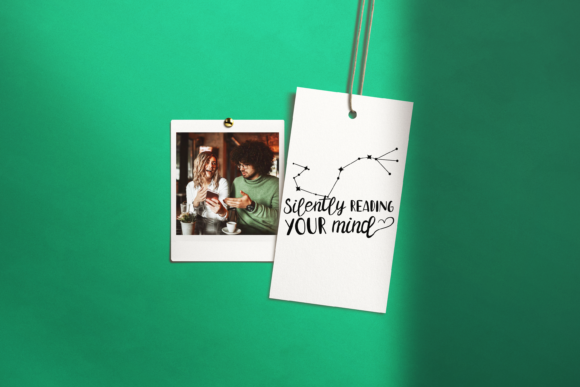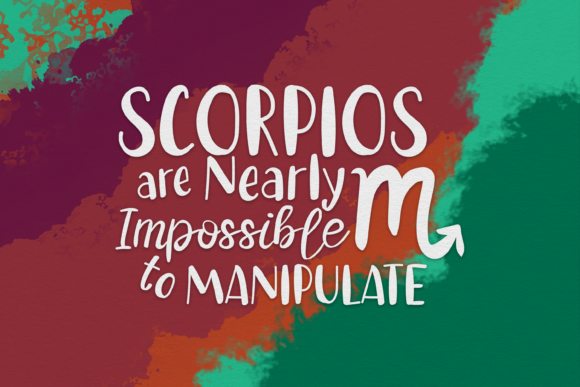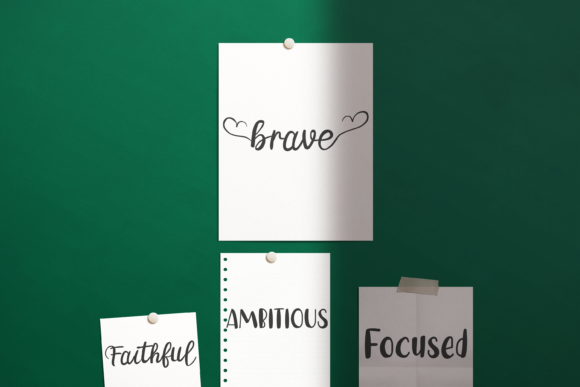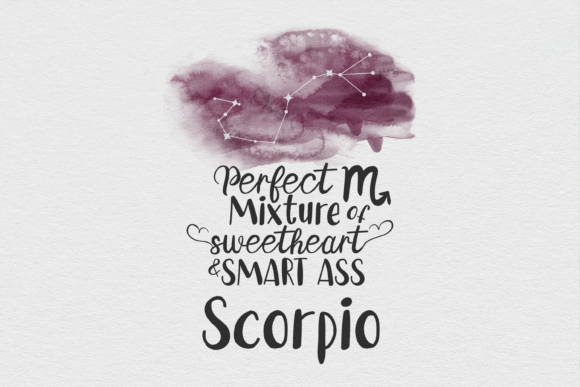
The Perfect Pair: Unlocking the Potential of Bravery Scorpio Duo Font
There’s nothing quite like the rush of creativity that comes when you’re working on a new project. The ideas are flowing, the colors are popping, and the fonts are speaking to you in a way that’s almost magical. But let’s be real, sometimes even the most talented designers need a little help finding that perfect font to tie everything together. That’s where Bravery Scorpio Duo Font comes in – a stunning display and script duo designed to complement each other perfectly.
Whether you’re a seasoned pro or just starting out, Bravery Scorpio Duo Font is the ultimate addition to your design arsenal. With its PUA encoded glyphs and swashes, you’ll have endless possibilities at your fingertips. From invitations and greeting cards to digital products and branding materials, this font is sure to bring a touch of elegance and sophistication to your work.
- Unique Characteristics: Bravery Scorpio Duo Font features a bold, modern design with a mix of geometric and organic elements, making it perfect for headlines and titles.
Bravery Scorpio Duo Font Review
I recently had the chance to work with the Bravery Scorpio Duo Font, and I must say it’s a unique and captivating addition to any design project. Here’s my honest review.
- Pairing Options: The Scorpio Duo Font comes in two weights, making it perfect for pairing with various text styles and creating visually appealing contrasts.
- Stylish Typography: This font offers a distinctive, elegant look that’s ideal for fashion, lifestyle, and luxury brands.
- High-Quality Rasterization: The font’s rasterization is top-notch, making it suitable for both digital and print materials.
- Limited Character Set: The Scorpio Duo Font only includes a basic character set, which might be a concern for designers working on projects requiring special characters or languages.
- Not Ideal for Body Text: While this font is perfect for headings and titles, its smaller text sizes may become difficult to read.
Overall, I’d say the Bravery Scorpio Duo Font is a solid choice for designers looking to add a touch of sophistication and elegance to their projects. While it has some limitations, its unique style and pairing options make it a valuable addition to any design library.
Tips for Getting the Most Out of Bravery Scorpio Duo Font
To get the most out of Bravery Scorpio Duo Font, use it to create bold, eye-catching headings and titles. This font is perfect for creating a dramatic and intense atmosphere in your designs.
Bravery Scorpio Duo Font is commonly used for:
- Creating bold, eye-catching headings and titles.
- Designing dramatic and intense promotional materials, such as posters and flyers.
Yes, Bravery Scorpio Duo Font is a highly customizable font. It includes a wide range of OpenType features, such as ligatures, swashes, and alternates, which can be accessed through software such as Adobe Illustrator or InDesign. Additionally, the font can be edited using font editing software, such as FontLab or Glyphs.